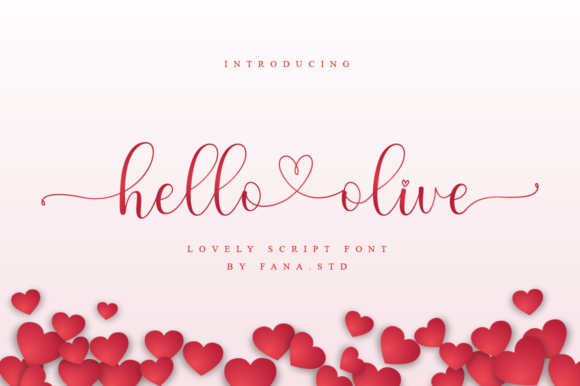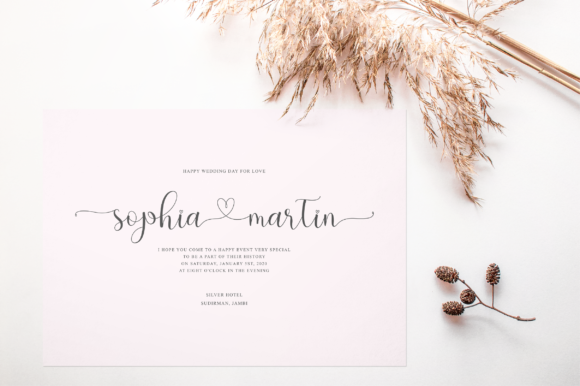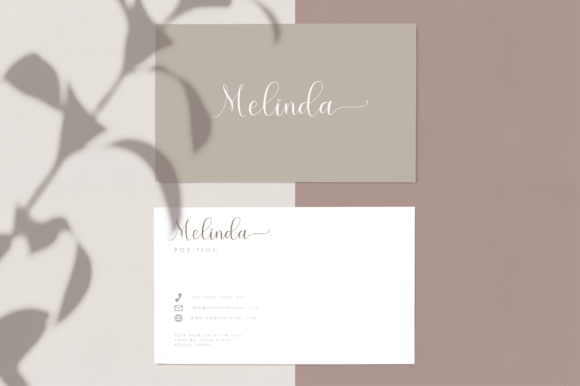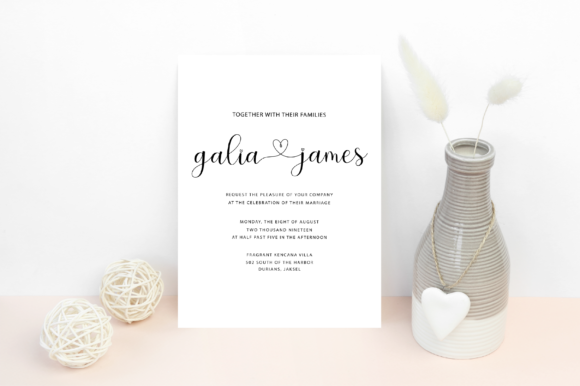
Hello Olive Font
About the Hello Olive Font
Let us introduce you to Hello Olive Font, where timeless design meets modern craftsmanship. Hello Olive is a sweet, soft hand-lettered handwritten font. Fall in love with its authentic feel and use it to create gorgeous wedding invitations, beautiful stationary art, eye-catching social media posts, and cute greeting cards.
Hello Olive’s soft, hand-lettered style is ideal for projects requiring a touch of warmth and personality. It excels in applications such as wedding stationery, branding for artisanal goods, short social media copy, and logos where a handcrafted feel is desired. However, its less-than-optimal legibility makes it unsuitable for body text or UI elements requiring extended readability.
This font pairs well with clean sans-serif fonts like Lato or Open Sans for a balanced contrast, enhancing readability in supporting text. A classic serif like Playfair Display could also create a sophisticated pairing, suitable for formal invitations or high-end branding. Avoid pairing it with other highly decorative or script fonts, as this could lead to visual clutter.
Hello Olive projects a friendly, approachable personality, best suited for brands emphasizing handcrafted quality, natural products, or a vintage aesthetic. Its inherent charm works best in smaller applications, adding a personal touch without overwhelming the design.